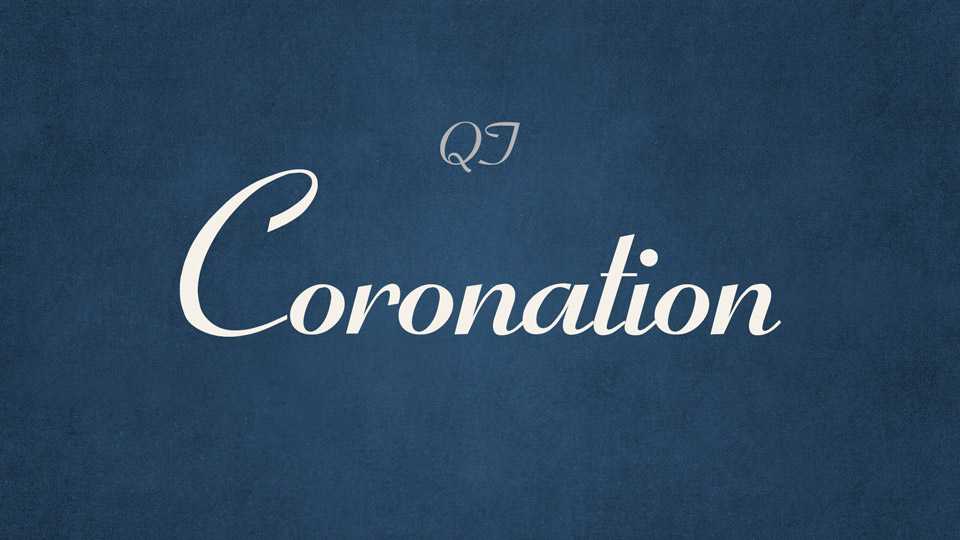
Download Coronation font, an elegant semi-formal “ribbon” script based on the Coronet typeface designed by Robert Middleton released by the Ludlow Type Foundry in 1937.